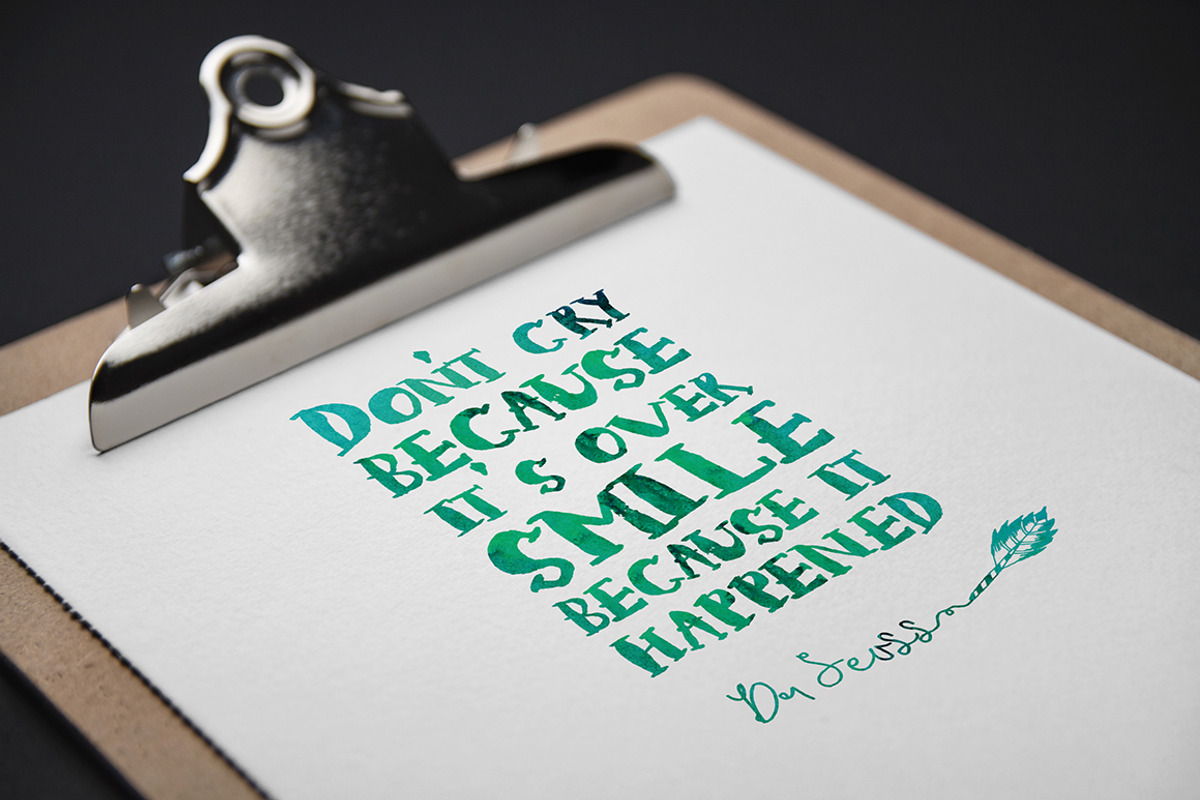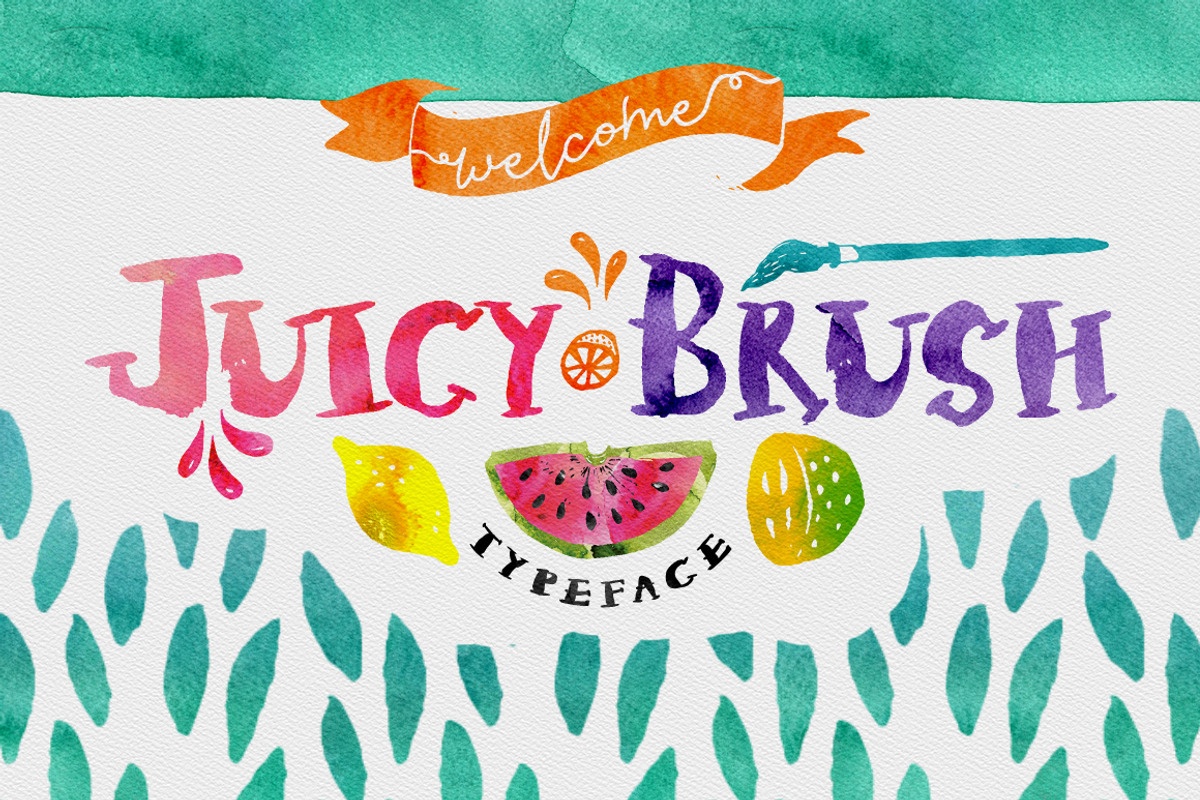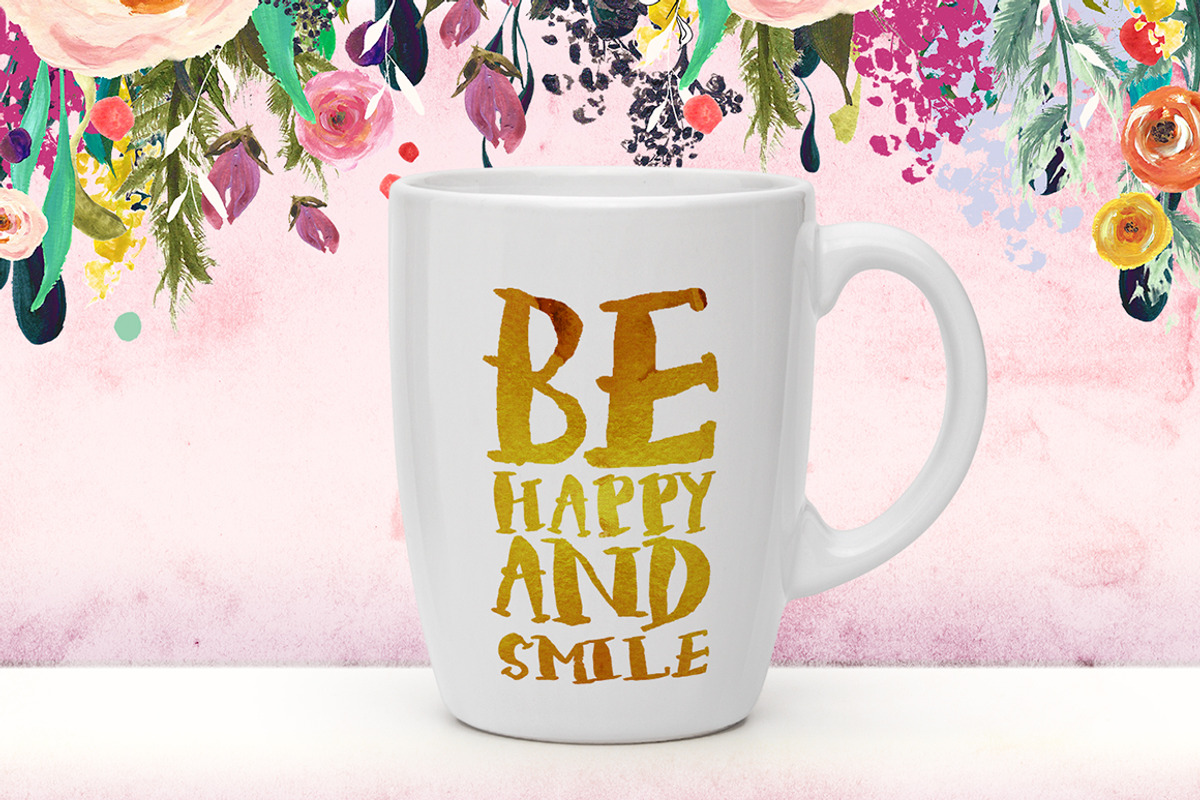
Juicy Brush Typeface
Juicy Brush Typeface by Creativeqube Design is a font selected for branding, posters, packaging, typography.
- Perfect for applying watercolor effects to Juicy brush includes Caps, Small caps, number and symbols.
Why Juicy Brush Typeface is worth a look
Juicy Brush Typeface by Creativeqube Design fits naturally into Branding, posters, packaging, typography.